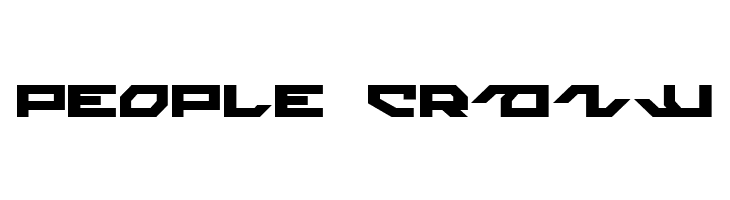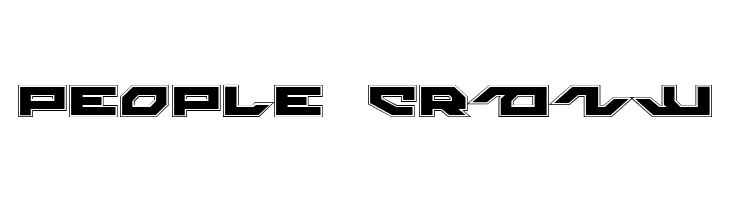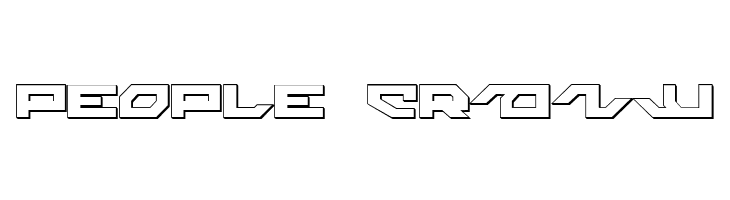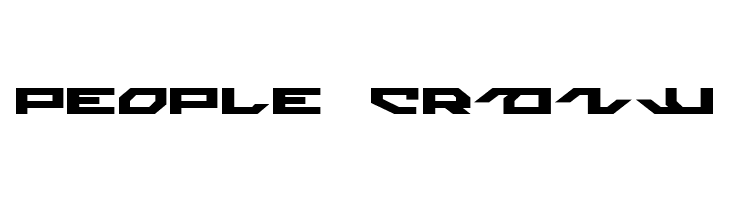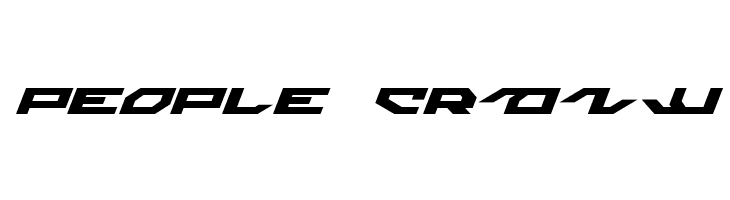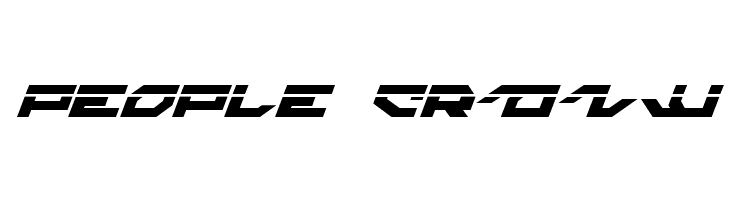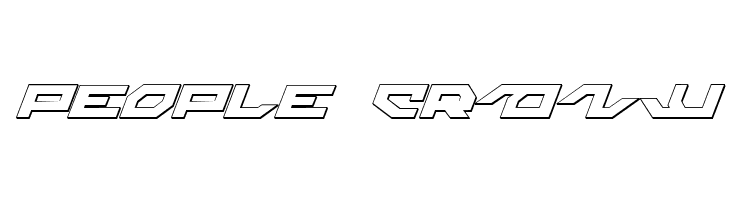
A bold, futuristic font with sharp angles and geometric shapes.
A futuristic, angular font with bold lines and geometric shapes.
A futuristic, angular font with sharp edges and geometric shapes.
A bold, futuristic font with sharp, angular shapes.
A bold, futuristic font with sharp angles and an italicized style.
A futuristic, angular italic font with a bold, high-tech design.
A futuristic, angular font with a dynamic slant and outline style.